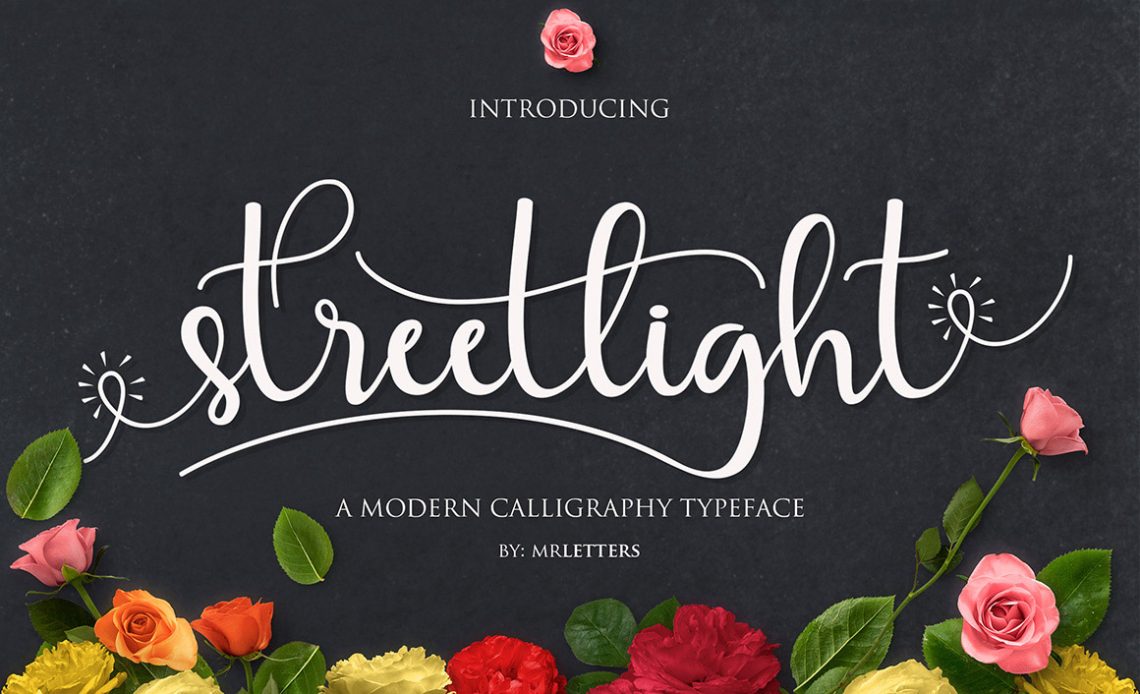
Introducing the Streetlight Script font - a masterpiece created by Mrletters that combines the beauty of calligraphy with a modern twist. This font boasts of decorative characters that are hand-drawn to perfection, making it a perfect choice for all your design needs.
Whether you're looking to add a touch of elegance to your wedding invitations, birthday cards or greeting cards, Streetlight Script has got you covered. But that's not all, this font is versatile enough to be used for branding, business cards, posters, and more.
With 459 glyphs and an array of OpenType features, Streetlight Script font is a game-changer. It offers a wide range of options for you to unleash your creativity and design something truly unique.
But why settle for just any font when you can have Streetlight Script? This font is more than just a design tool, it's a work of art that will add a touch of class and sophistication to your projects.